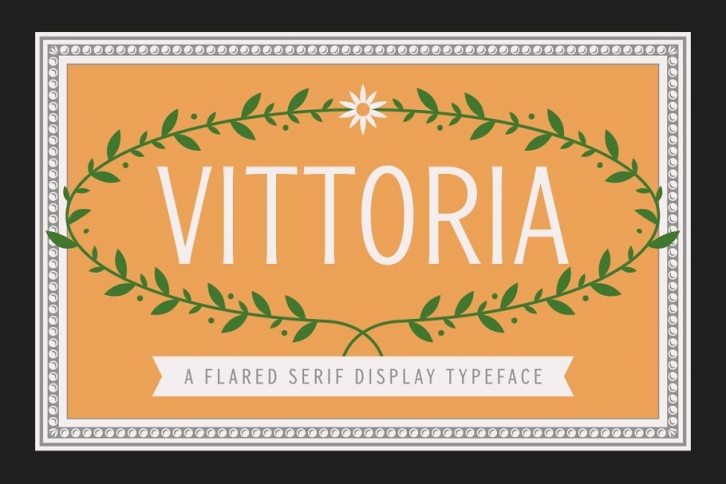
Vittoria is a flared serif display typeface inspired by a strange mix of 1970s and classic roman type. It has 473 glyphs, comes in 5 weights ranging from Light to Bold, supports all Western, Central and South Eastern European languages and includes the following OpenType features:
- Proportional Lining Figures
- Tabular Lining Figures
- Superior & Inferior Figures
- Numerators & Denominators
- Ordinals
- Fractions
It's a typeface perfect for logos, posters, packaging, headlines, and more.